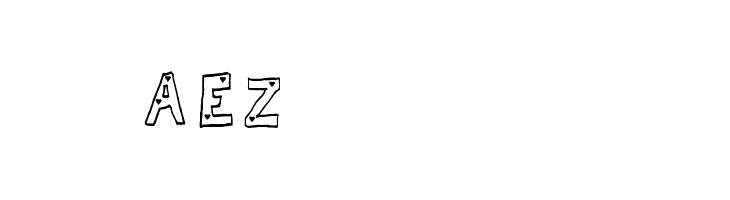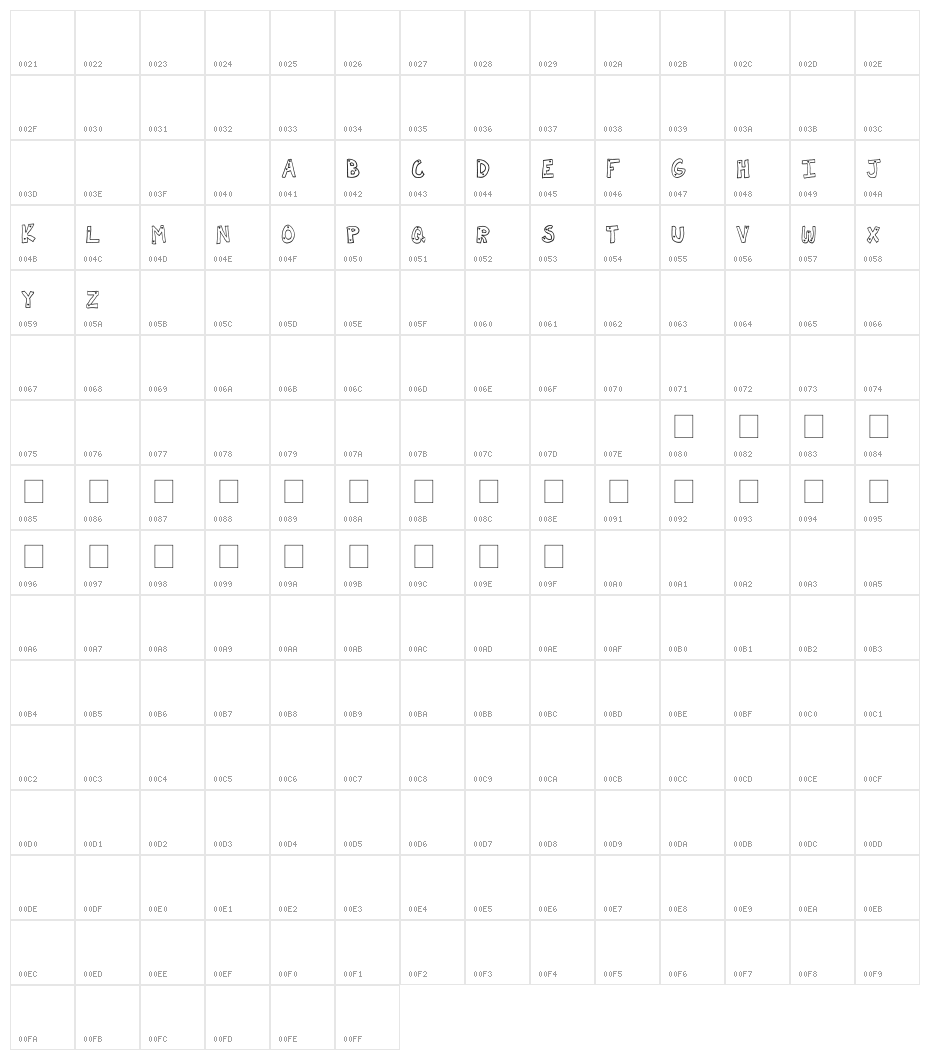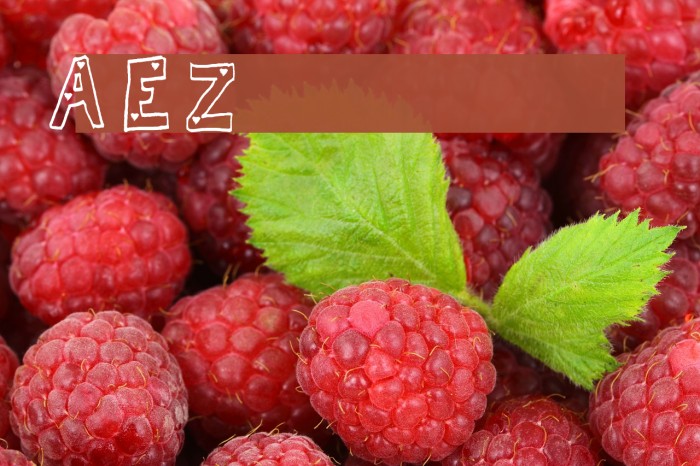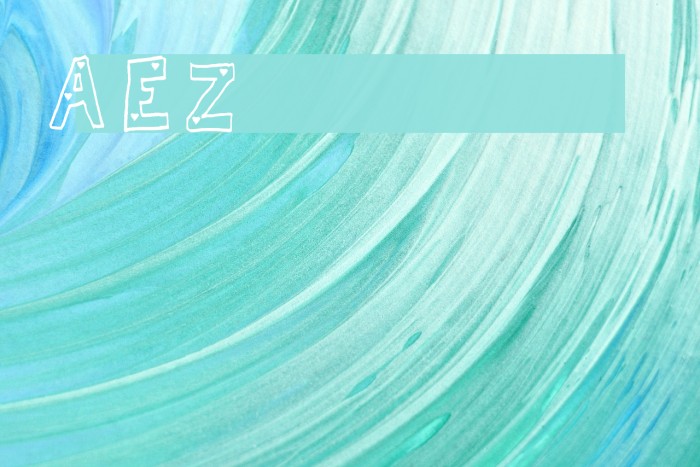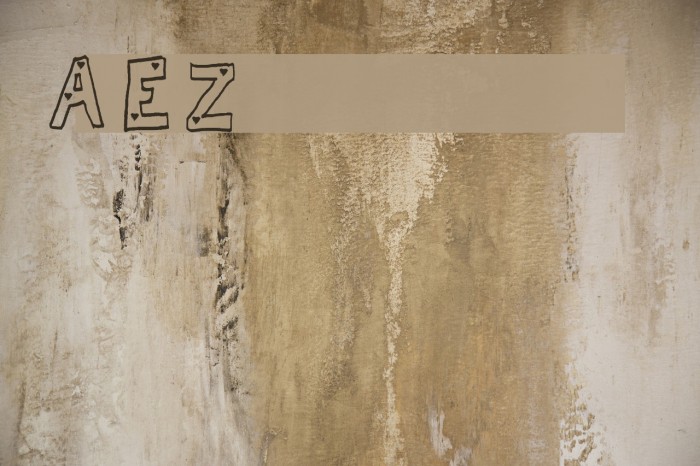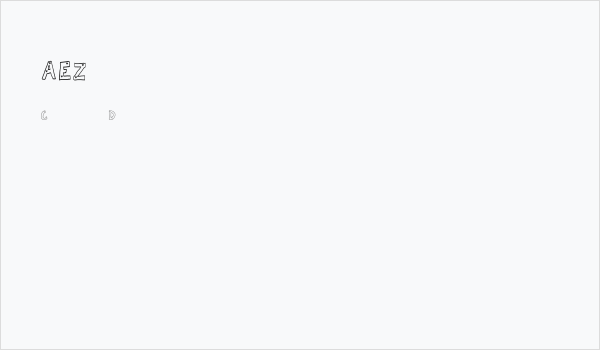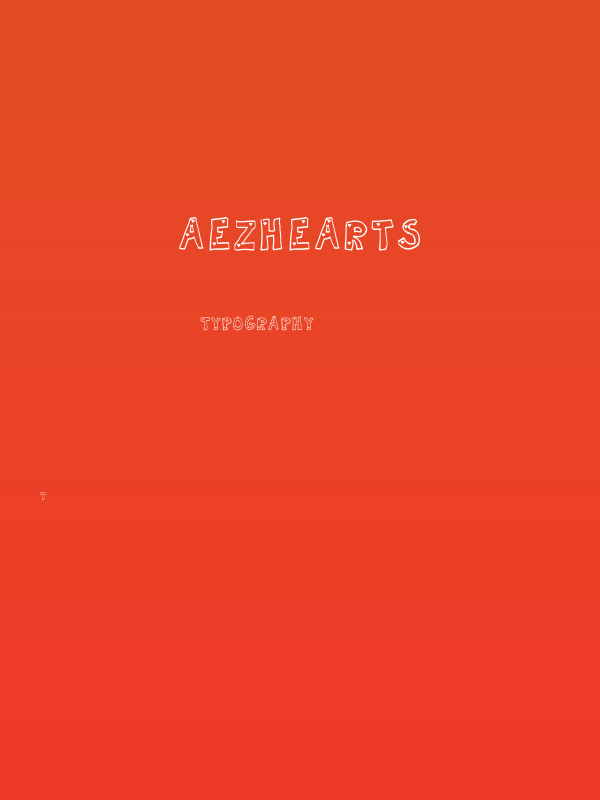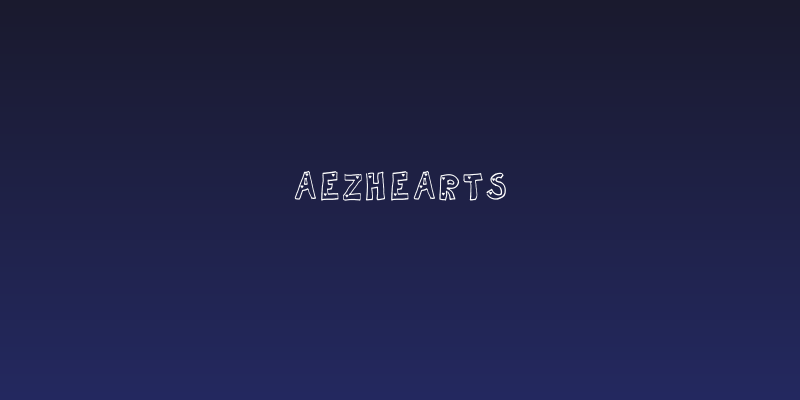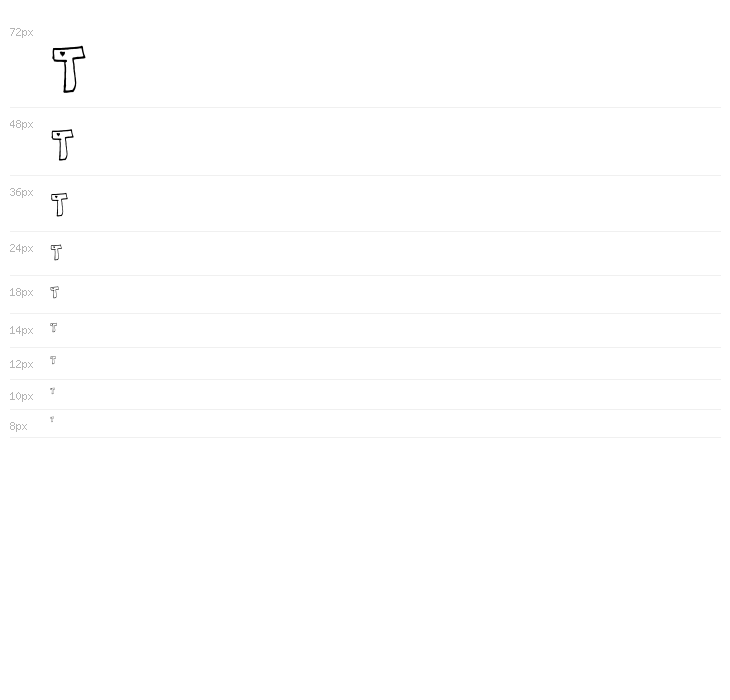
AEZhearts Font
AEZhearts Description
This playful and whimsical font features uppercase letters adorned with small heart shapes, giving it a charming and unique appearance. The letters are bold and slightly irregular, adding to the hand-drawn aesthetic. The hearts are integrated into the strokes, creating a cohesive and decorative look. This font is perfect for projects that require a touch of fun and creativity, such as children's books, greeting cards, or playful branding. Its distinctive style makes it stand out, while the boldness ensures readability.
| Overall Style | Whimsical |
| Use Case | Headlines, Logos, Decorative text |
| Proposed Projects | Ideal for children's books, greeting cards, playful branding, and creative projects. |